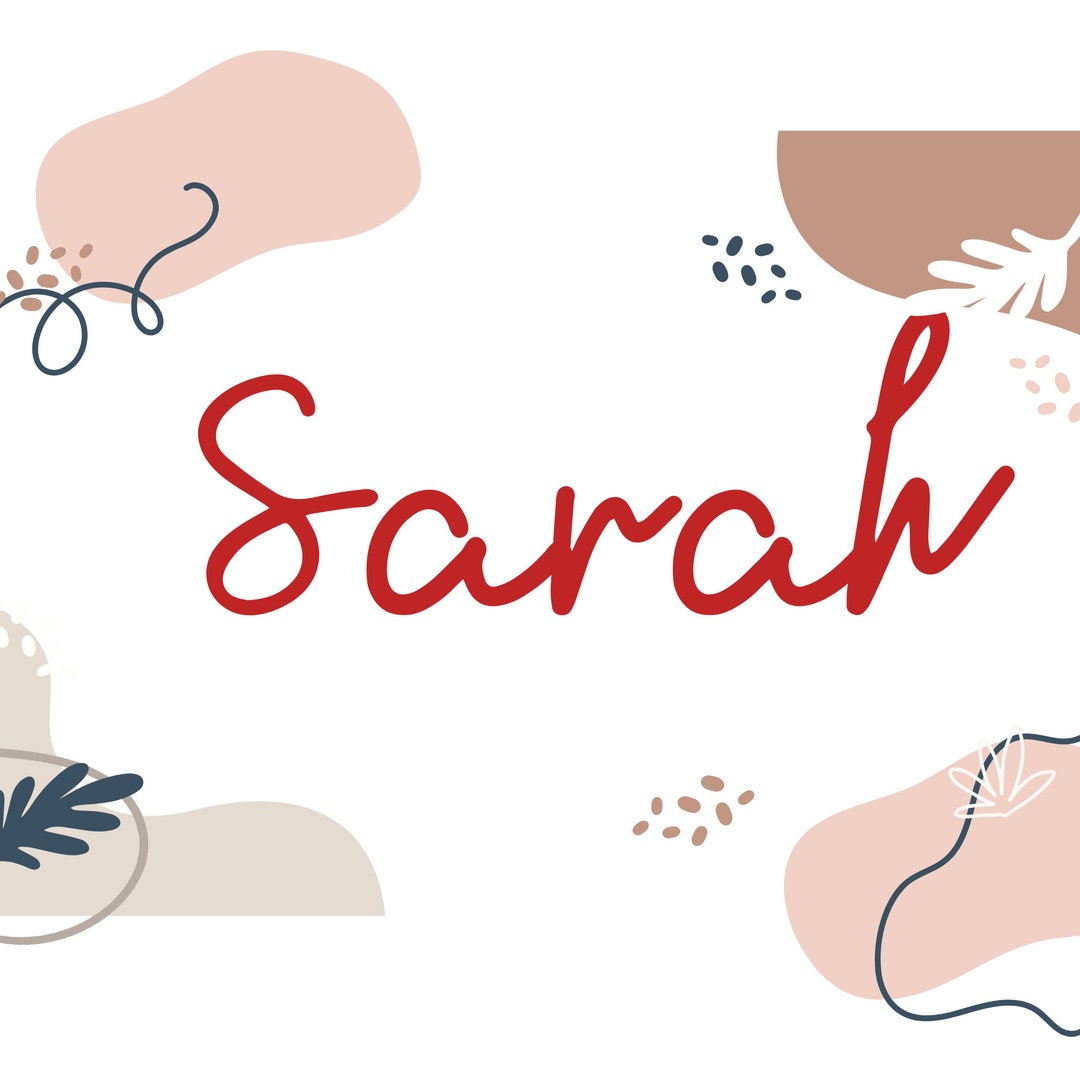
Learning to write in cursive can be a rewarding experience, and mastering the art of writing "Sarah in Cursive" is a great place to start. Cursive writing not only adds a personal touch to your handwriting but also improves fine motor skills and enhances cognitive development. Whether you are a beginner or looking to refine your cursive skills, this guide will walk you through the steps to write "Sarah in Cursive" beautifully.
Understanding Cursive Writing
Cursive writing is a style of penmanship in which the letters are connected in a flowing manner. It is often taught in schools as a way to improve handwriting speed and legibility. The key to mastering cursive is to practice regularly and focus on the correct formation of each letter.
Basic Cursive Letters
To write “Sarah in Cursive,” you need to be familiar with the basic cursive letters. Here are the letters you will need:
• S
• A
• R
• H
Step-by-Step Guide to Writing “Sarah in Cursive”
Follow these steps to write “Sarah in Cursive” with precision and elegance.
Writing the Letter “S”
The cursive letter “S” is formed by starting at the top line and making a loop that goes down and then back up to the middle line. Here is a breakdown:
• Start at the top line and make a small loop down to the middle line.
• From the middle line, make another loop that goes down to the bottom line and then back up to the middle line.
• Connect the loops smoothly.
Writing the Letter “A”
The cursive letter “A” is formed by starting at the top line and making a small loop that goes down to the middle line. Here is a breakdown:
• Start at the top line and make a small loop down to the middle line.
• From the middle line, make a straight line down to the bottom line.
• Connect the loop and the straight line smoothly.
Writing the Letter “R”
The cursive letter “R” is formed by starting at the top line and making a loop that goes down and then back up to the middle line. Here is a breakdown:
• Start at the top line and make a small loop down to the middle line.
• From the middle line, make a straight line down to the bottom line.
• From the bottom line, make a small loop that goes back up to the middle line.
• Connect the loops and the straight line smoothly.
Writing the Letter “H”
The cursive letter “H” is formed by starting at the top line and making a straight line down to the bottom line. Here is a breakdown:
• Start at the top line and make a straight line down to the bottom line.
• From the bottom line, make a small loop that goes back up to the middle line.
• From the middle line, make another straight line down to the bottom line.
• Connect the loops and the straight lines smoothly.
Practicing “Sarah in Cursive”
Now that you know how to write each letter, it’s time to practice writing “Sarah in Cursive.” Follow these steps:
• Start with the letter “S” and follow the steps outlined above.
• Without lifting your pen, move to the letter “A” and continue the flow.
• Next, write the letter “R” ensuring the loops are connected smoothly.
• Finally, write the letter “H” and complete the word.
Here is a visual representation of "Sarah in Cursive":
Sarah in Cursive
Tips for Improving Your Cursive Writing
Improving your cursive writing takes practice and patience. Here are some tips to help you along the way:
• Practice Regularly: Consistency is key. Set aside time each day to practice your cursive writing.
• Use Guided Sheets: Practice sheets with dotted lines can help you maintain the correct letter size and spacing.
• Focus on Flow: Ensure that your letters are connected smoothly. Avoid lifting your pen unless necessary.
• Maintain Proper Posture: Sit comfortably with your feet flat on the ground and your back straight. This will help you write more fluidly.
• Use the Right Tools: A fine-tip pen or pencil can make a significant difference in the quality of your cursive writing.
📝 Note: Remember that practice makes perfect. Don't be discouraged if your cursive writing doesn't look perfect at first. Keep practicing, and you will see improvement over time.
Common Mistakes to Avoid
When learning to write “Sarah in Cursive,” it’s essential to avoid common mistakes that can affect the legibility and flow of your writing. Here are some mistakes to watch out for:
• Inconsistent Letter Size: Ensure that all your letters are of uniform size. This will make your writing more legible.
• Poor Spacing: Maintain consistent spacing between letters and words. This will improve the overall appearance of your writing.